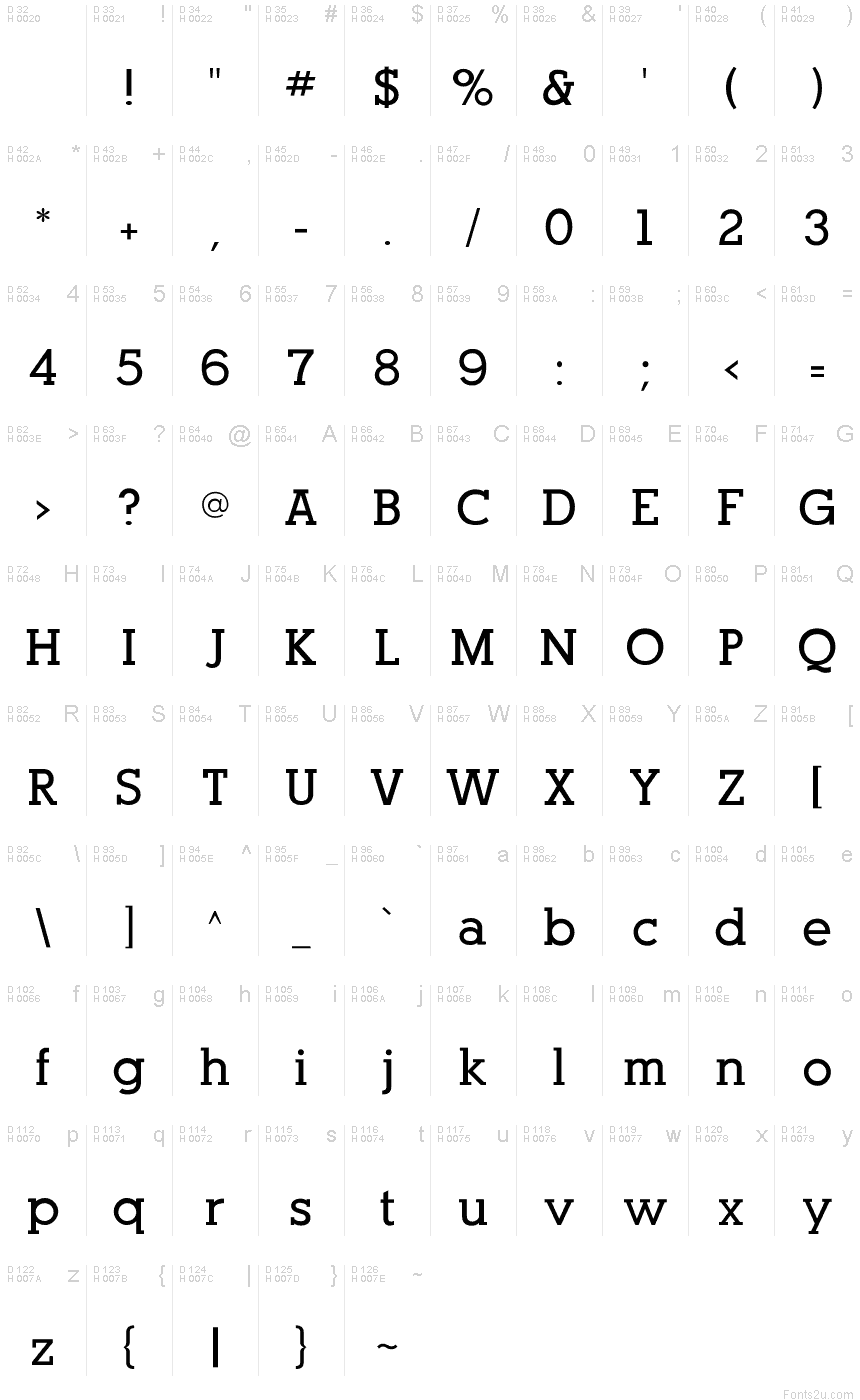
AlexandriaFLF-Bold
Alexandria FLF Bold by Richard A. Ware is a free bold slab serif built on sturdy, old-fashioned print proportions. Its broad letterforms have square-edged serifs, softly rounded curves, and clear shifts between thick and thin strokes, a mix that feels literary and solid rather than delicate or formal.
An independent bookshop or heritage-minded publisher could build a recognizable brand around it, then carry the same character into book covers, event posters, and printed packaging. The generous shapes and traditional serif detailing suit readers drawn to classic print culture, especially for publishing, literary events, and products with an archival or handcrafted story.